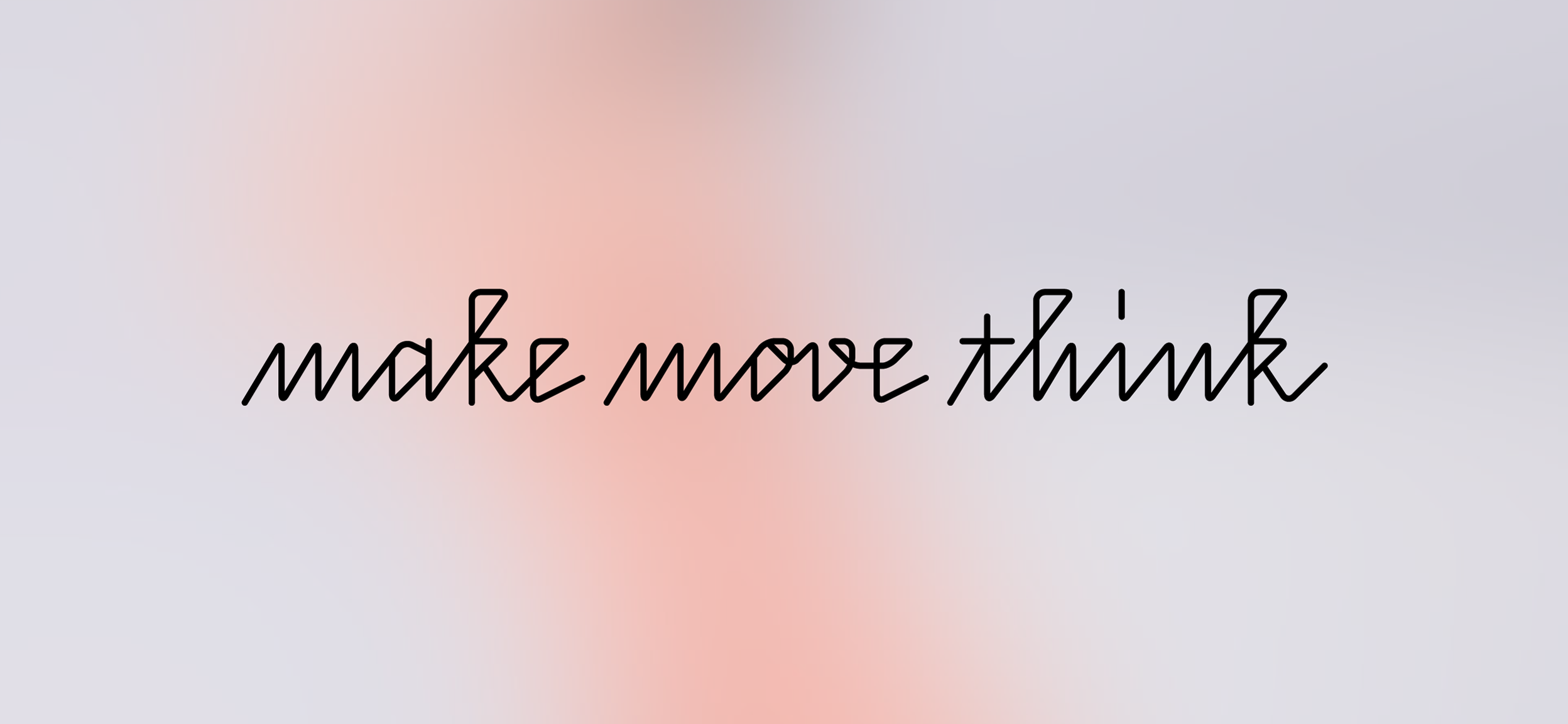
Make Move Think
Logo for the Make Move Think Foundation, an initiative focusing on multidisciplinary artistic collaborations. It is a place where the visual and performing arts come together to produce new physical and digital works including live performances, films, documentaries, installations, workshops and lectures.
The script logo is a digital redrawing of a sketch created by designer Johanna Biľak.